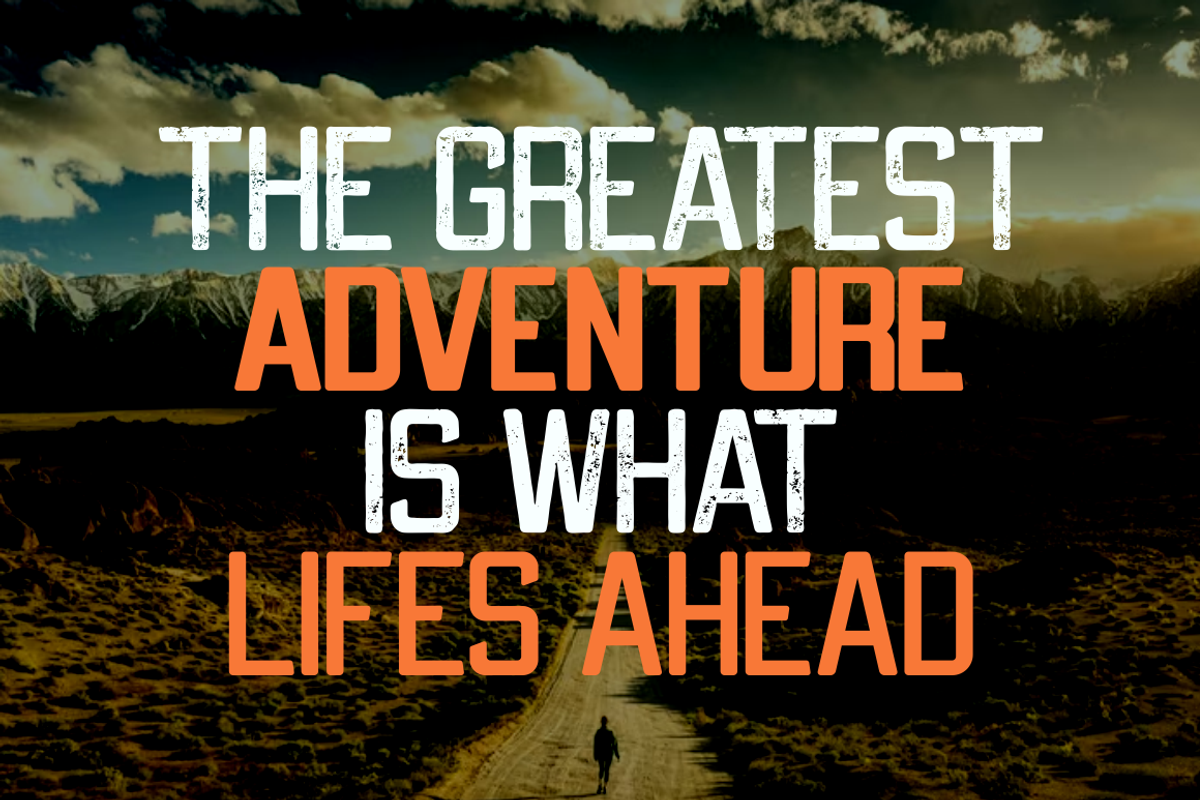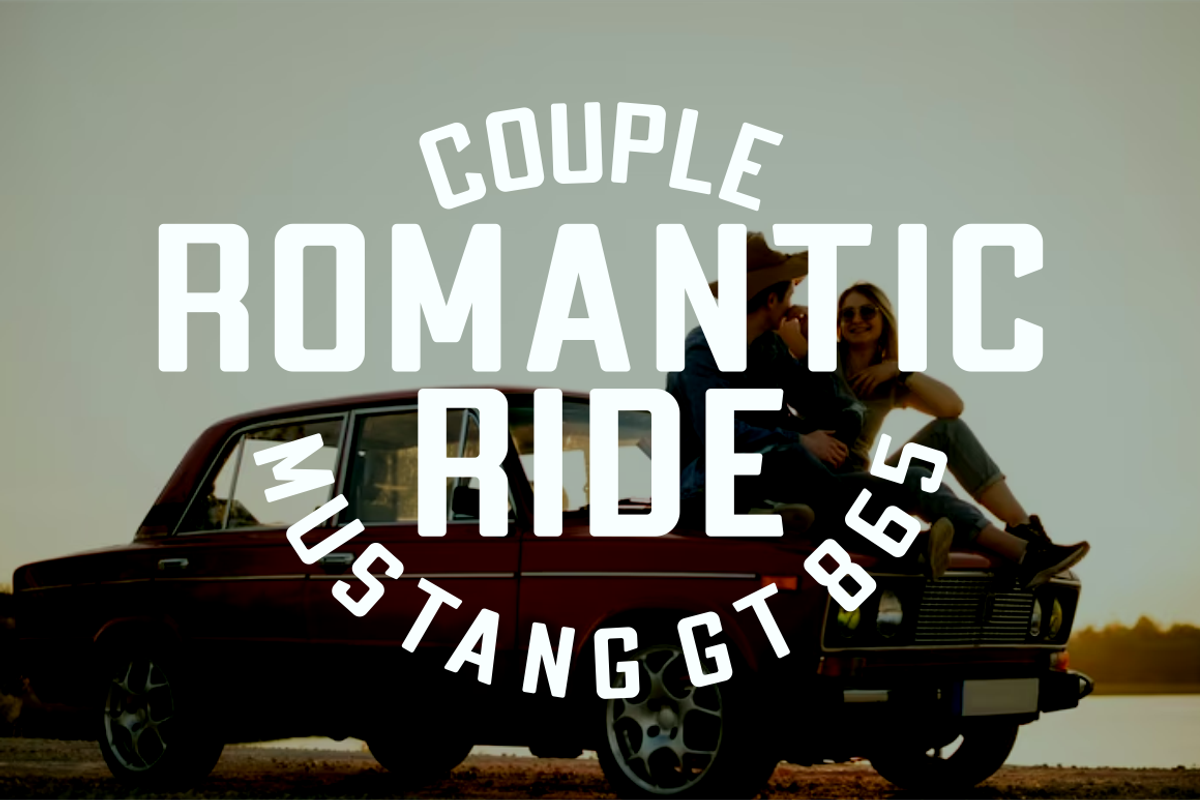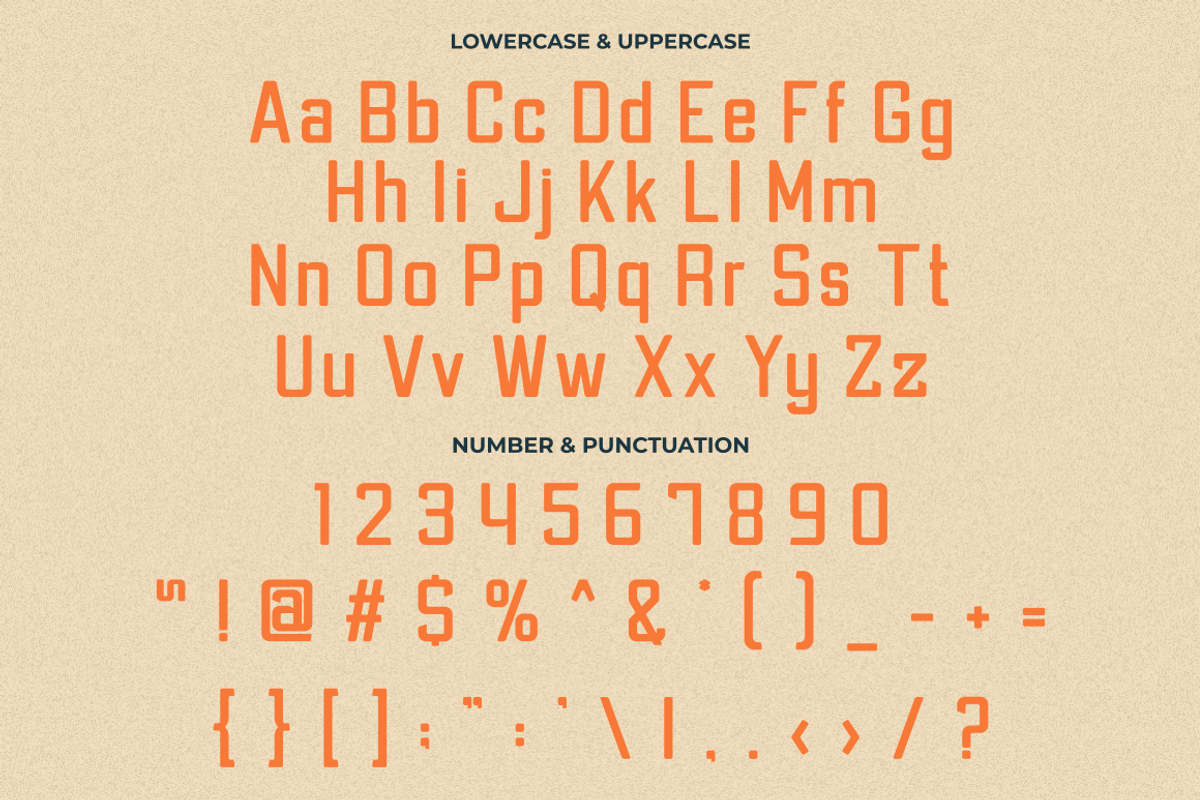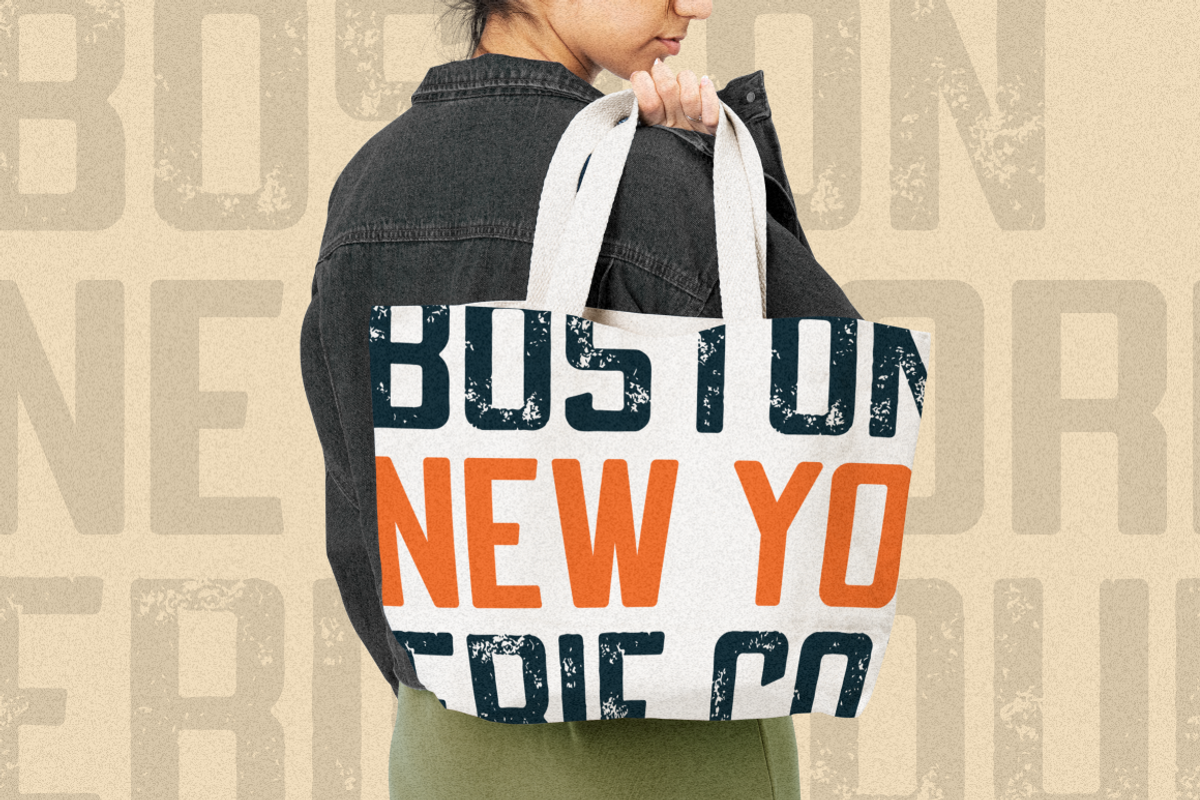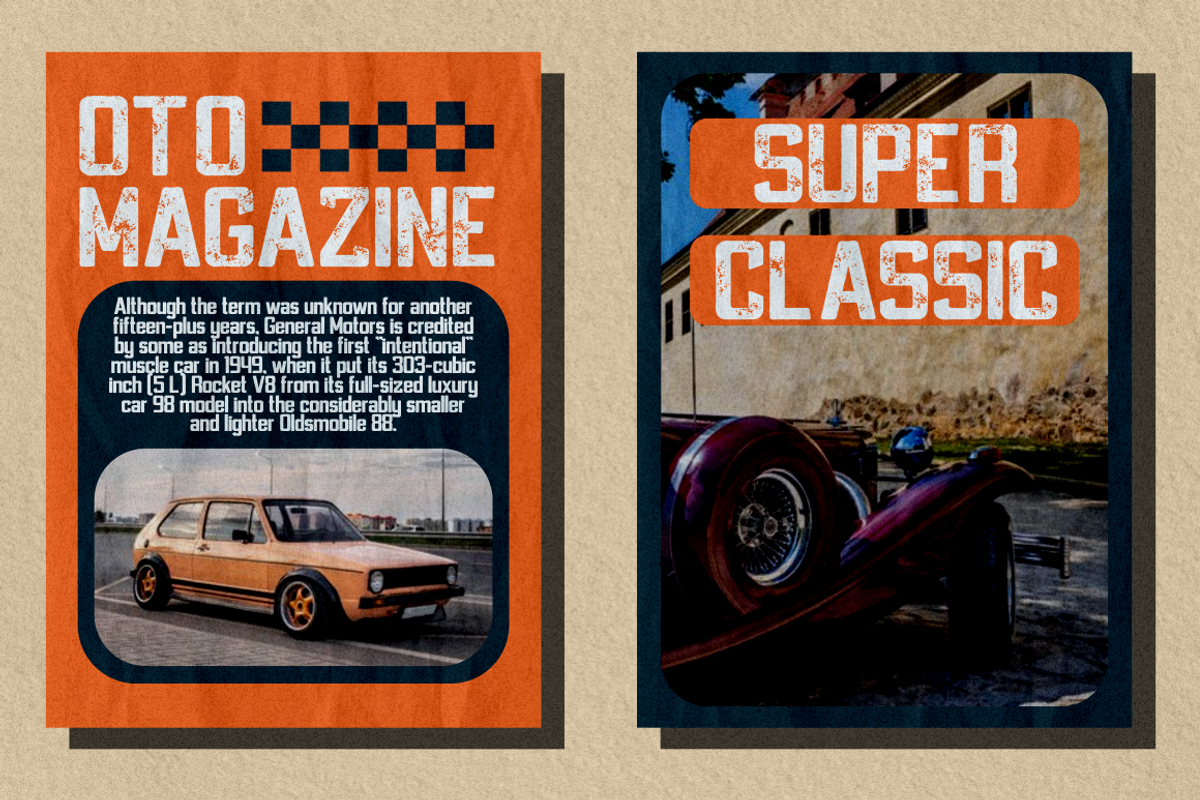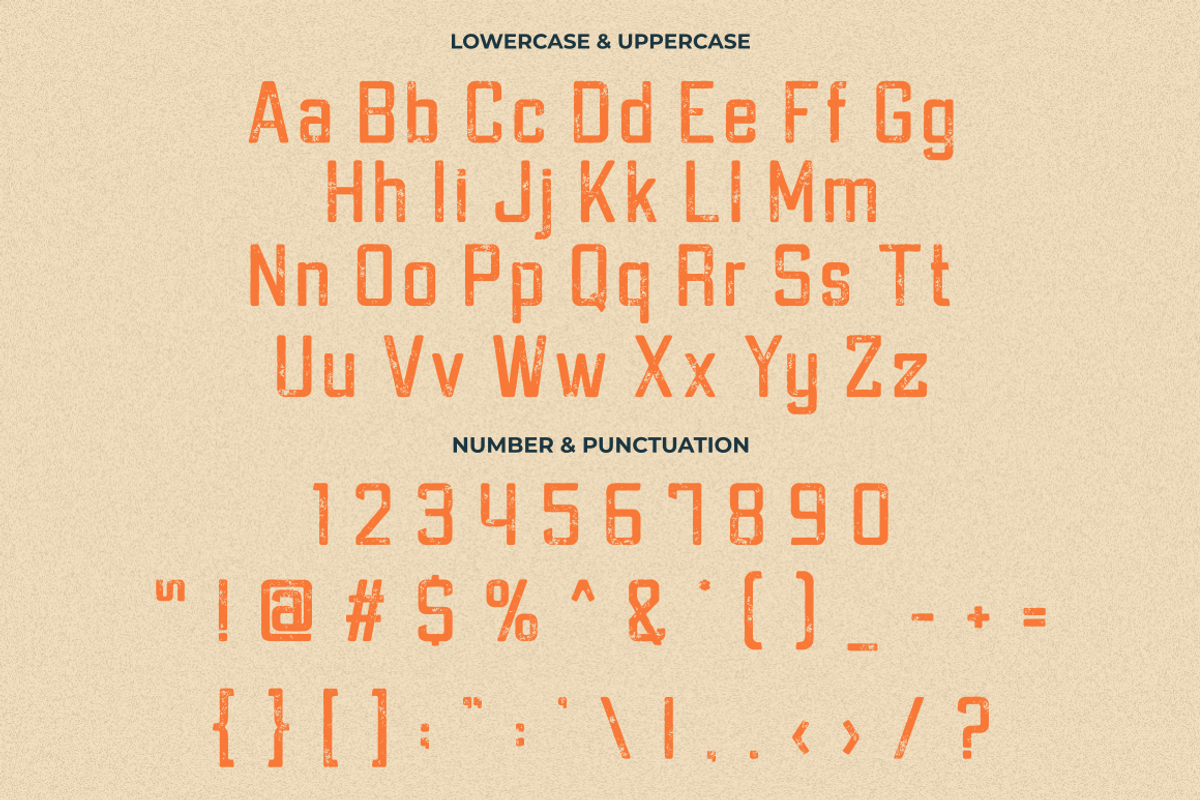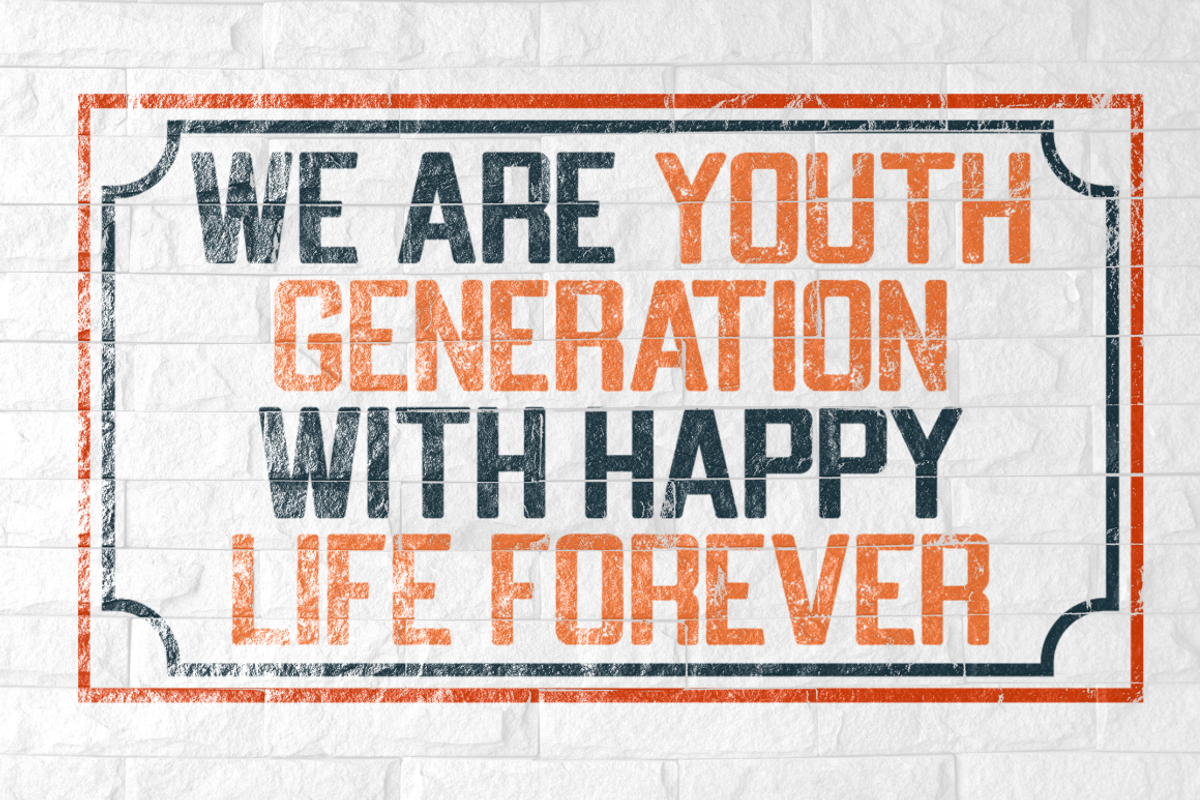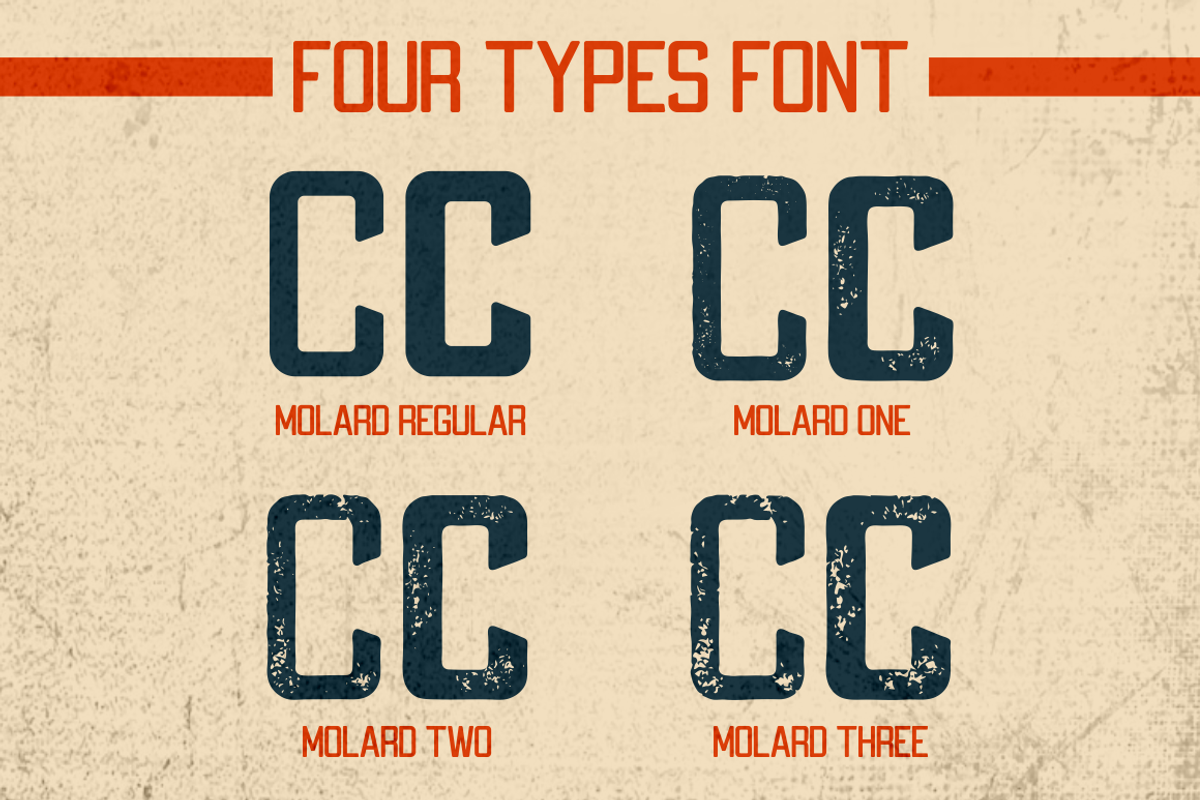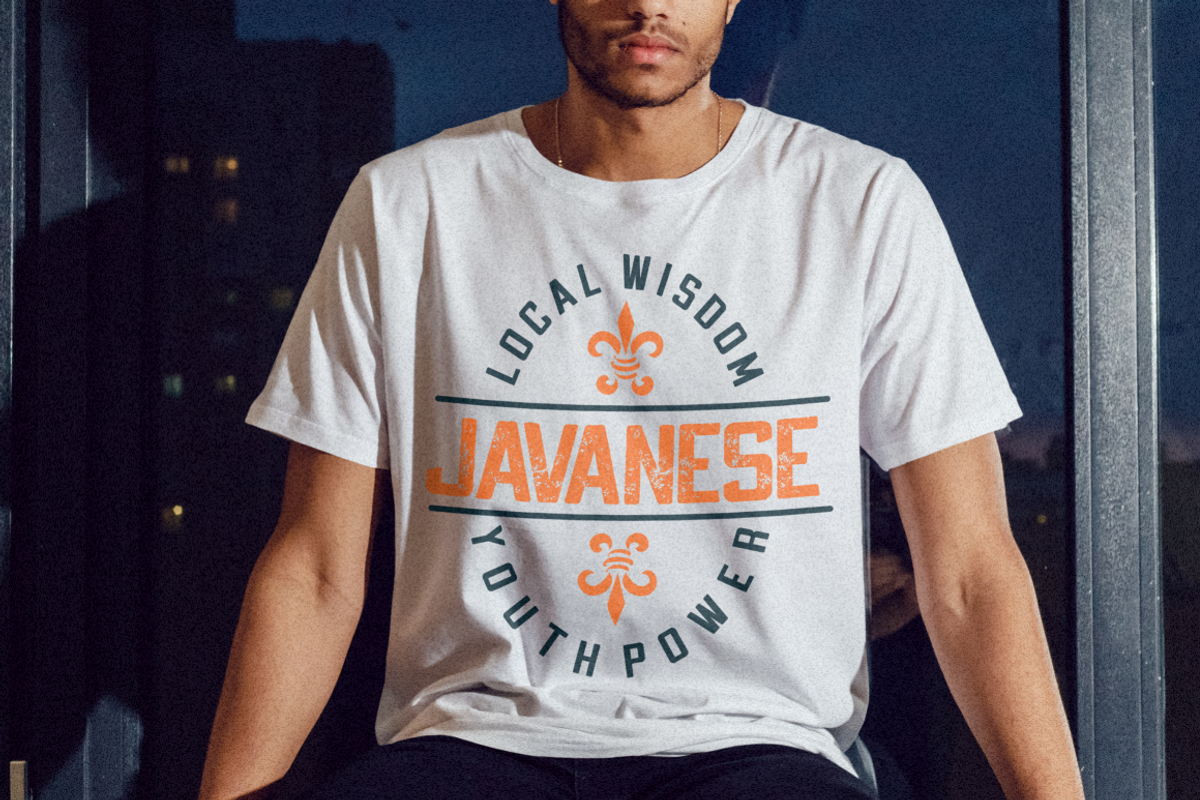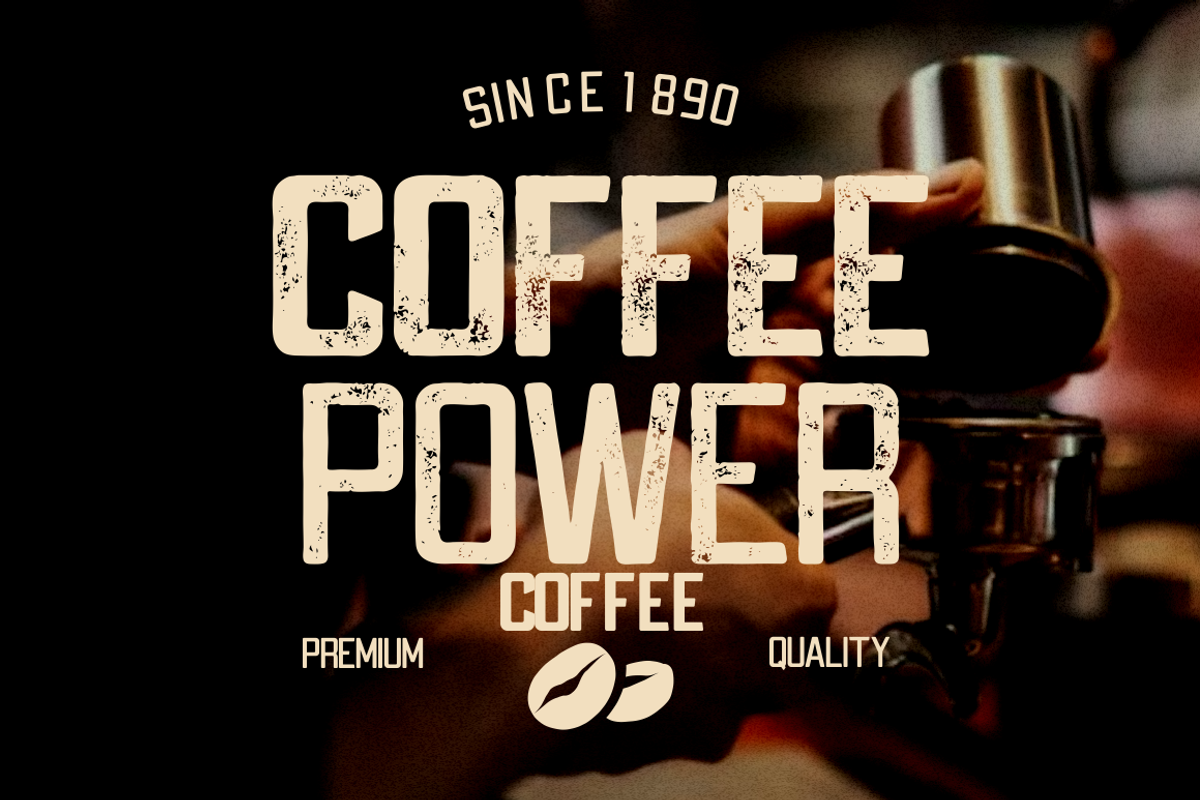
Molard - Modern Various Font
Unleash your design potential with Molard - Modern Various Font. This sans-serif typeface offers a diverse range of styles, featuring two distinct weights and versions – clean and textured. With a selection of three texture levels, Molard presents a total of eight fonts in its collection. Its contemporary and robust aesthetic adds an assertive touch to your projects. Perfectly suited for logo creation, branding, labels, quotes, printing, magazines, posters, film titles, and more, Molard empowers your creativity to flourish.
Molard - Modern Various Font offers an array of design possibilities. With two weights and versions available – clean and textured – and a unique selection of three texture levels, this sans-serif typeface encompasses eight distinct fonts. Its modern and sturdy appearance lends a powerful essence to your designs. Whether crafting logos, enhancing branding, designing labels, showcasing quotes, preparing print materials, curating magazine layouts, or composing posters and film titles, Molard is a versatile tool that elevates your creative journey.